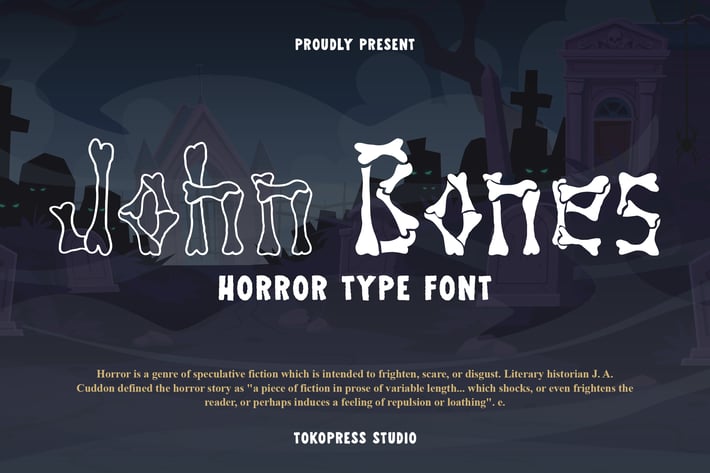
John Bones - Scary Font
John Bones is a horror-themed display typeface crafted for eerie Halloween designs, horror game titles, and spooktacular branding. With its jagged, bone-structured strokes and expressive, irregular letterforms, this font evokes a chilling, cinematic atmosphere. The design features bony textures, asymmetric curves, and high-contrast stems—making it instantly eye-catching yet perfectly legible.
This typeface gives off a creepy, theatrical vibe, ideal for haunted house flyers, costume parties, or spine-tingling movie posters. The character shapes are organic yet structured, combining gnarled curves and sharp terminals to mimic skeletal bones. Think of it as the typographic equivalent of a haunted forest.
Whether you're designing a horror podcast logo, a Halloween YouTube thumbnail, or an event banner for a haunted maze, John Bones delivers the fright. Its unique aesthetic makes it perfect for editorial spreads, gaming UIs, spooky merch, and social media promotions aimed at thrill-seekers. It grabs attention with sinister flair while still holding strong visual hierarchy in layout-heavy projects.
Key Features
Why designers love John Bones:
- Bone-Inspired Style – Letters shaped like twisted skeletal limbs
- High Emotional Impact – Instantly evokes horror, mystery, and suspense
- Perfect for Events – Tailor-made for Halloween flyers, banners, and creepy party invites
- Eye-Catching Display – Great for logos, cover art, and attention-grabbing titles
- Unique Yet Readable – Distinct forms that maintain legibility from poster to packaging
- Regular and Line version